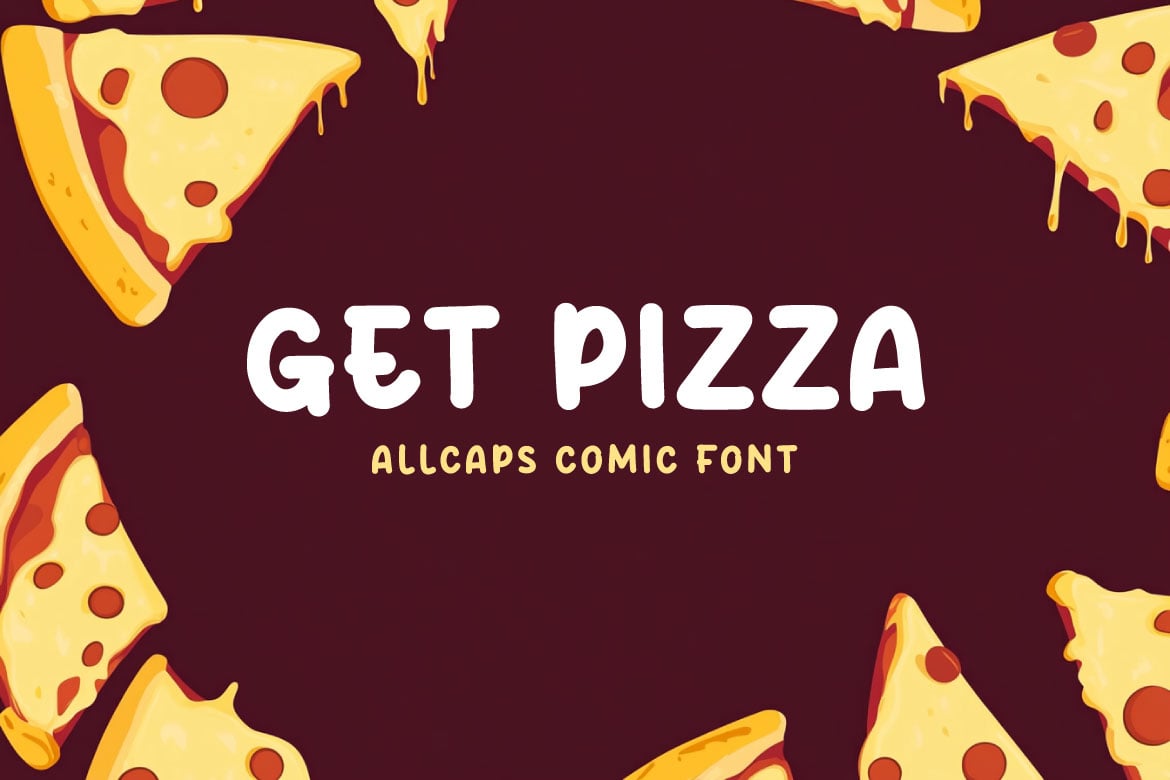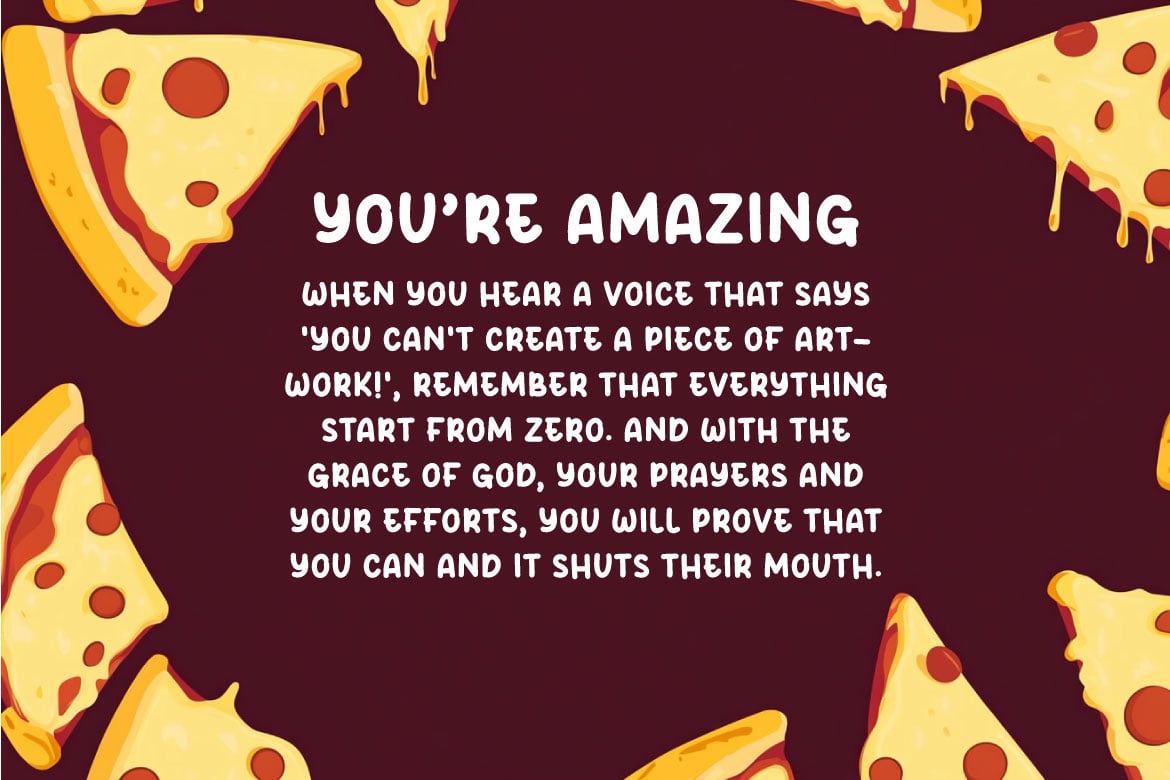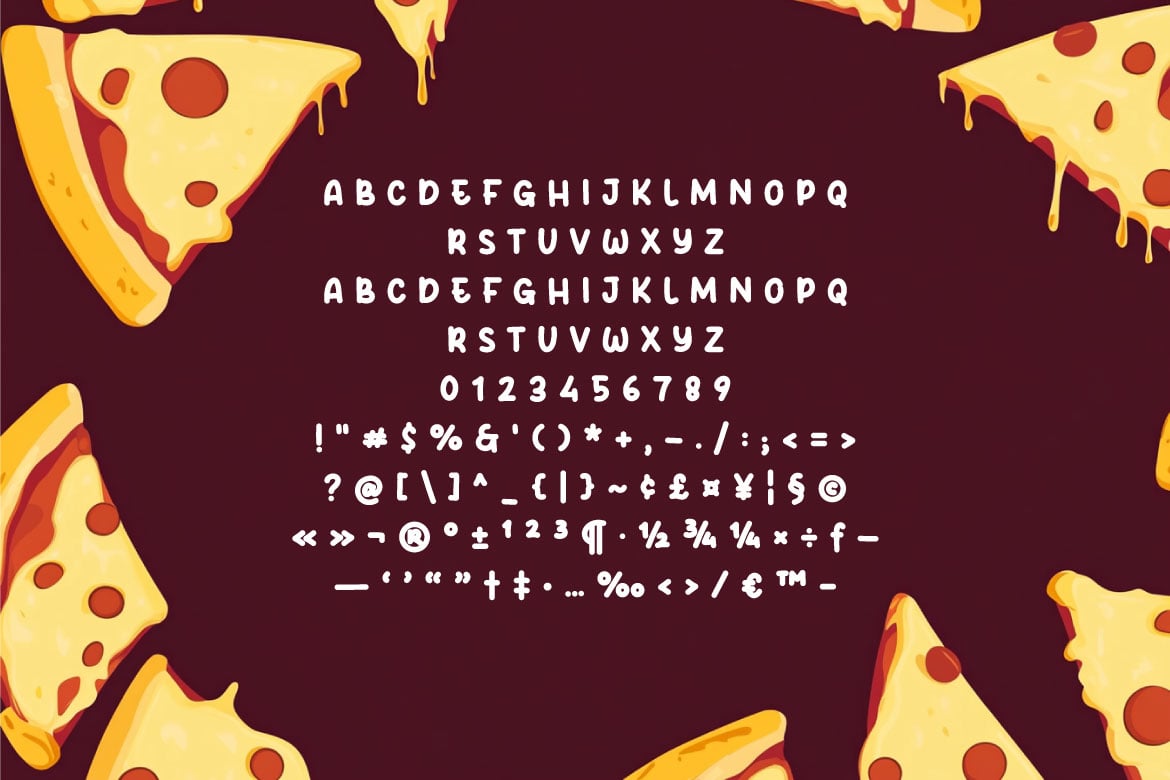
Get Pizza – Allcaps Comic Font
Get Pizza is a playful and bold all-caps comic font designed to bring fun and energy to your projects. Its hand-drawn, quirky letterforms are perfect for designs that need a burst of personality—whether you’re working on children’s books, comics, posters, or social media graphics. The thick strokes and lively curves make it stand out in both digital and print formats.
This font captures the casual, fun-loving spirit of a pizza party, making it an ideal choice for creative projects with a lighthearted or humorous theme. With smooth readability and a distinctive style, Get Pizza is also versatile enough to enhance headlines, logos, packaging, and much more.